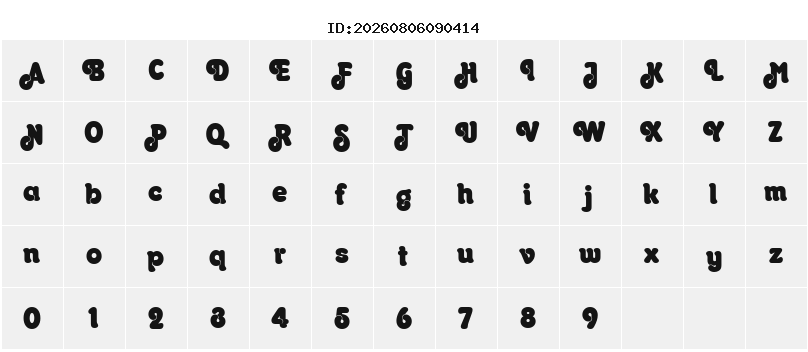
Orkney-Poster Preview
• Font Name: Orkney-Poster
• Full Font Name: Orkney-Poster-Regular
• Designer: SoftMaker Software GmbH
• Manufacturer: SoftMaker Software GmbH
About Orkney-Poster.ttf
Orkney-Poster.ttf is a modern, elegant sans-serif font designed for ultimate readability and visual harmony. Perfect for branding, headlines, web design, and print materials.